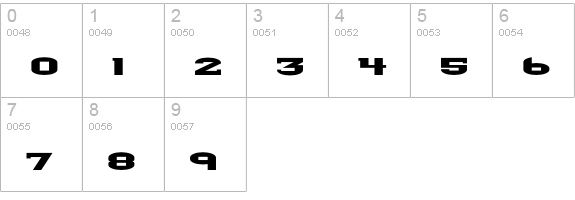
Werkman-Square Font Details
Werkman-Square is a stunning and versatile font that embodies a perfect balance between modernity and elegance. This unique typeface is ideal for various design projects, ranging from branding and packaging to headlines and invitations. With its precise geometric shapes and clean lines, Werkman-Square captures attention and exudes a sense of sophistication. Each letter is meticulously crafted, creating a visually harmonious composition that is both eye-catching and legible. One of the most remarkable aspects of Werkman-Square is that it is freely available to download at FontsMarket.com. This means that designers, creatives, and enthusiasts can access this exceptional font without any cost or restrictions. It empowers users to bring their creative visions to life and add a touch of class to their projects. Whether it's a bold logo for a high-end fashion brand, an elegant wedding invitation, or a minimalist website design, Werkman-Square effortlessly adapts and elevates any design concept. Its versatility allows it to seamlessly integrate into various design styles, providing endless possibilities for visual expression. Additionally, Werkman-Square's extensive character set includes uppercase and lowercase letters, numerals, punctuation marks, and multilingual support, ensuring that it can be used effectively for projects in different languages. Download Werkman-Square now at FontsMarket.com and experience the freedom to explore and create stunning designs with this exceptional font. Unleash your creativity and make a lasting impression with Werkman-Square's captivating and timeless aesthetic.